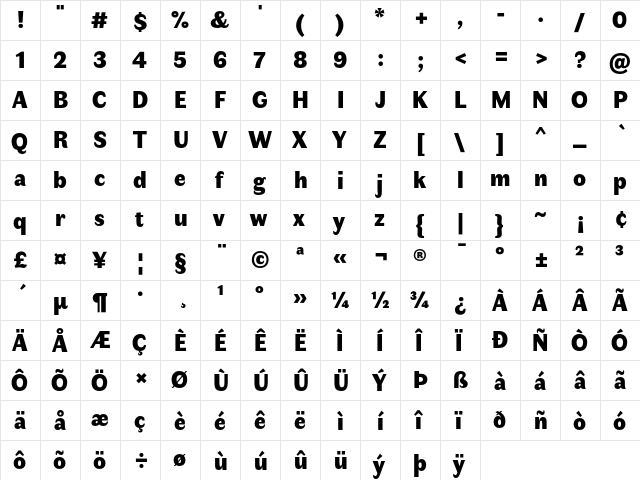
Faune Black Regular
| Foundry | Centre national des arts plastiques |
| Designer | Alice Savoie |
Design Context for Faune Black Typeface
Faune Black takes a measured approach to typography — its balanced proportions and neutral character make it a reliable workhorse for both digital and print work.